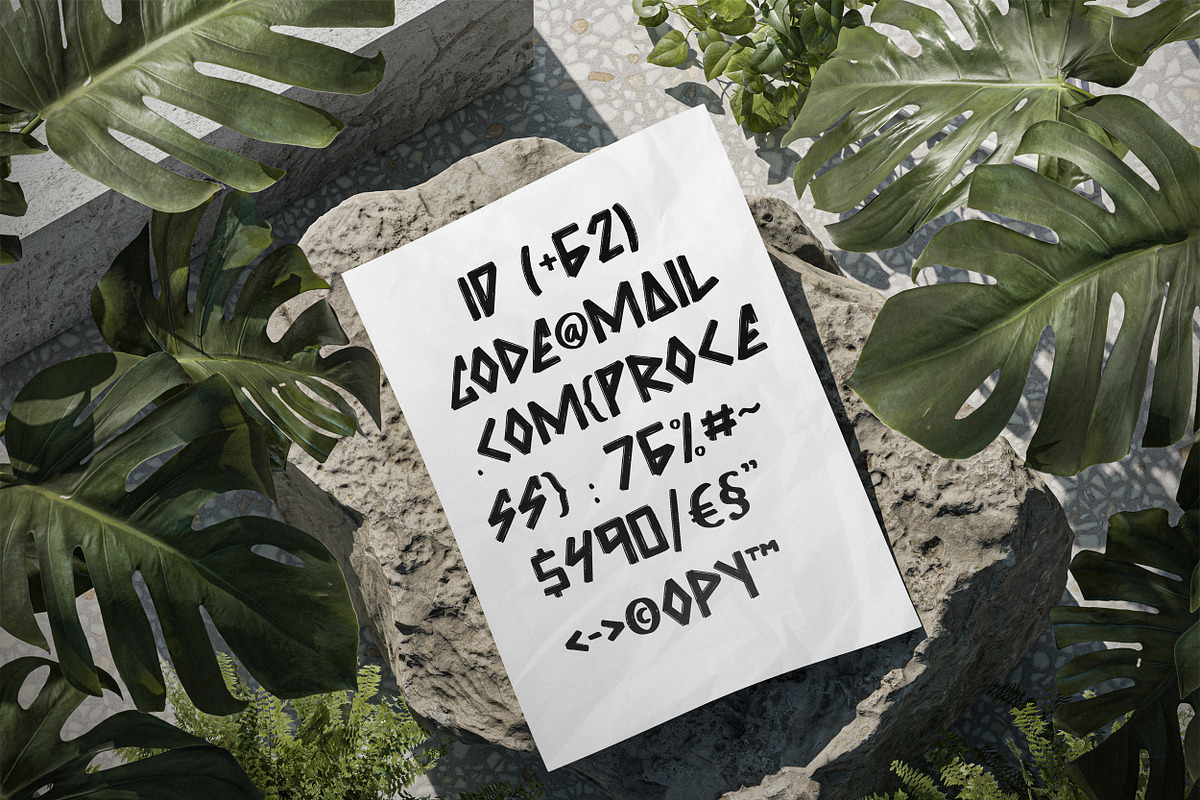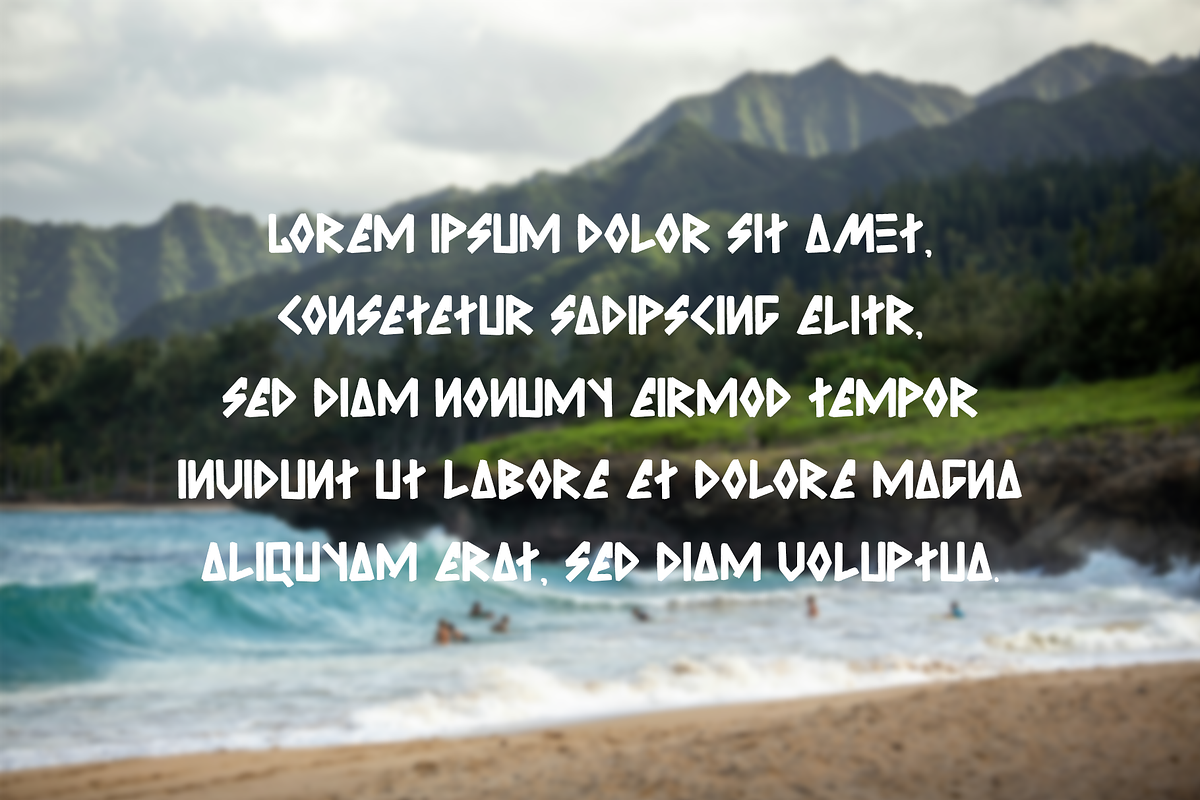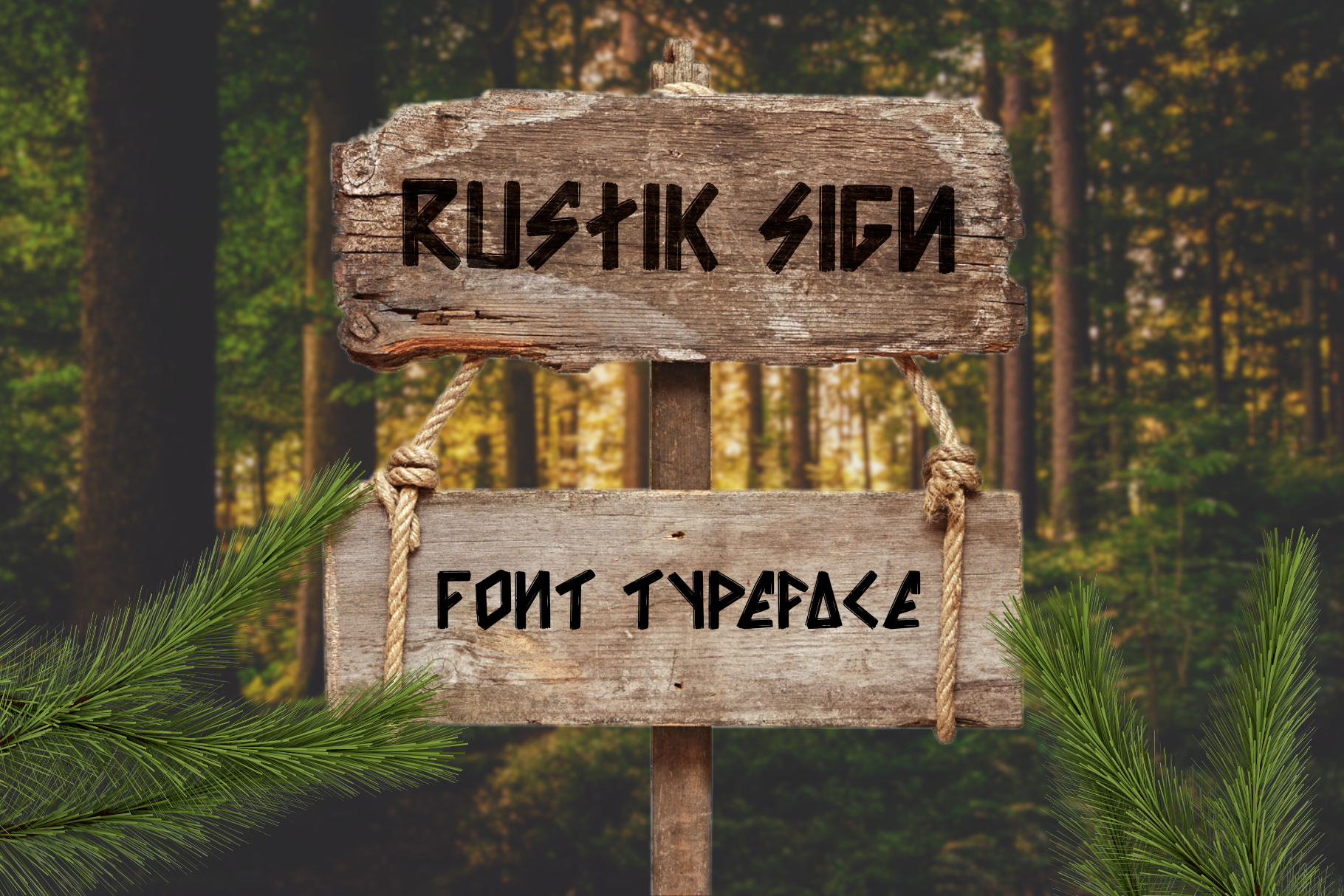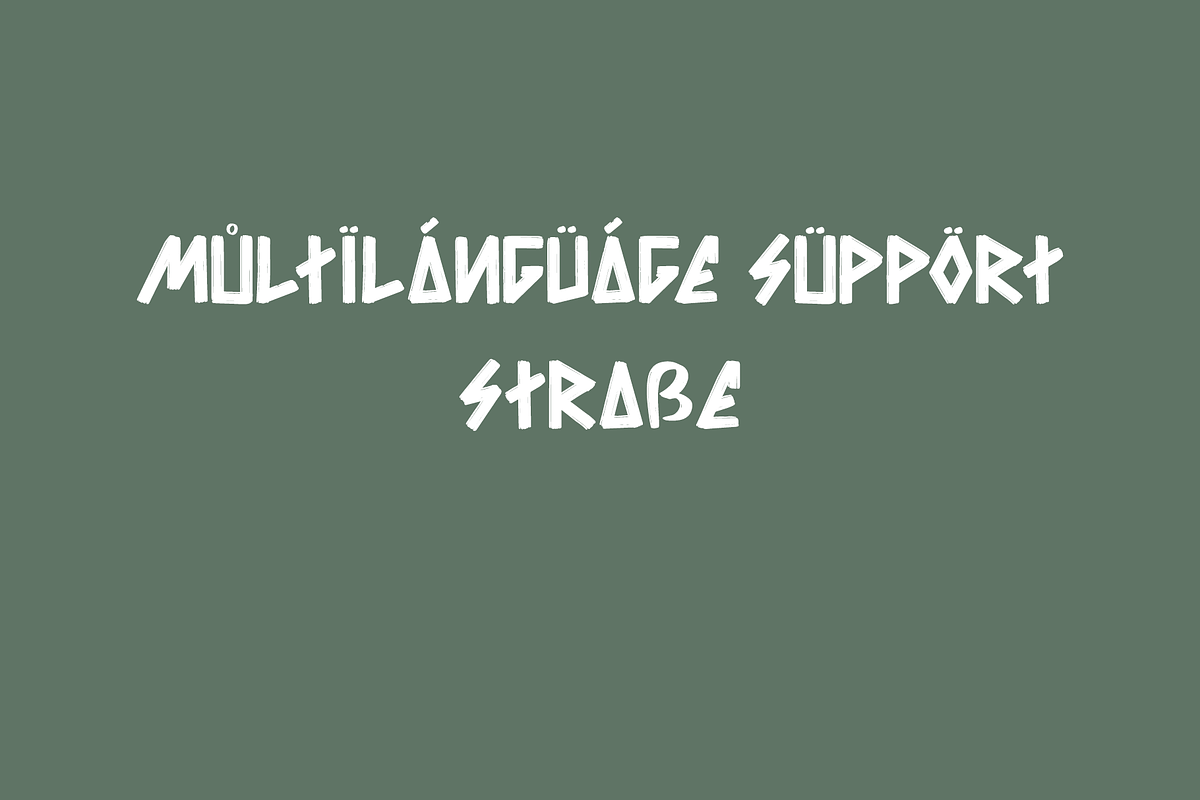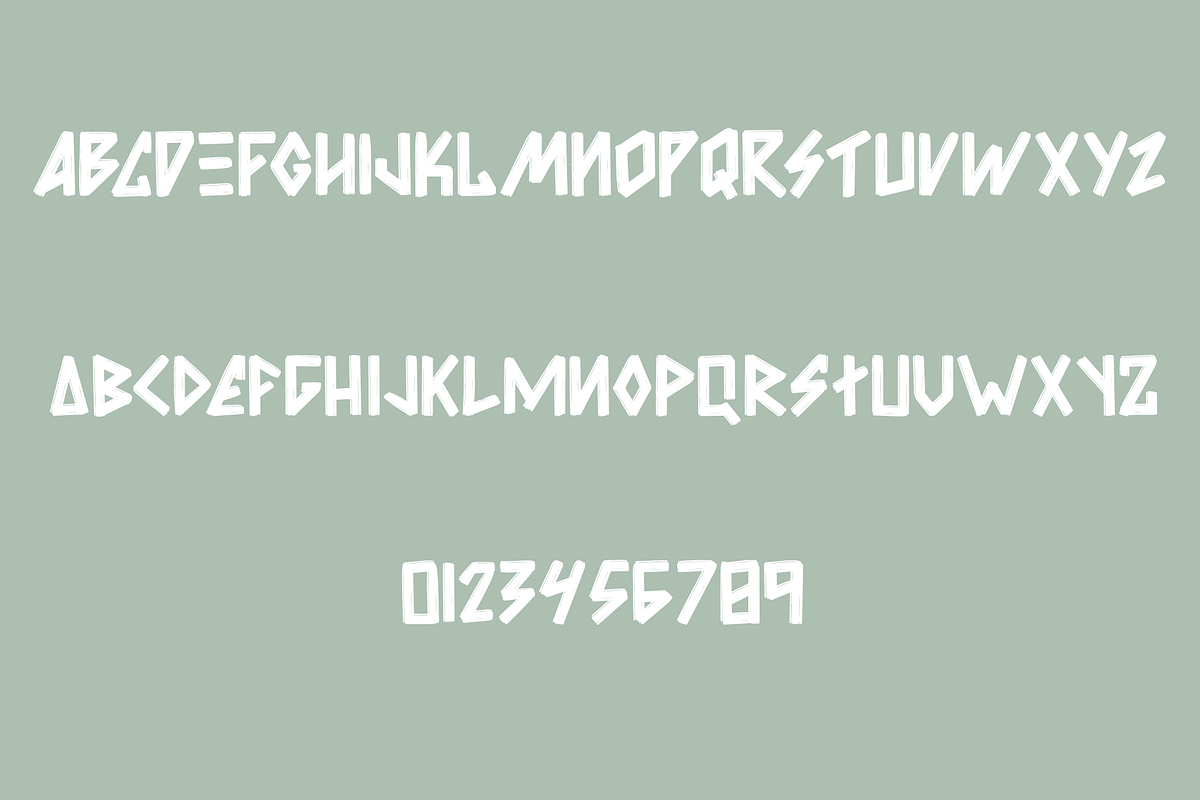
Rustic Sign – Handcrafted Typeface
Introducing Rustic Sign, a handcrafted typeface that brings a touch of vintage charm to your designs. Perfect for logos, signage, invitations, and more, this font adds an authentic rustic feel to any project.
- Handcrafted Design: Each character is meticulously crafted to emulate the warmth and imperfection of hand-drawn lettering.
- Versatile Use: Ideal for branding, packaging, posters, and other creative endeavors seeking a rustic aesthetic.
- Complete Character Set: Includes uppercase and lowercase letters, numerals, punctuation, and multilingual support.
- High-Quality Vector: Ensures crisp and clear rendering at any size.
Note: For optimal results, pair Rustic Sign with earthy color palettes and natural textures to enhance its rustic appeal.